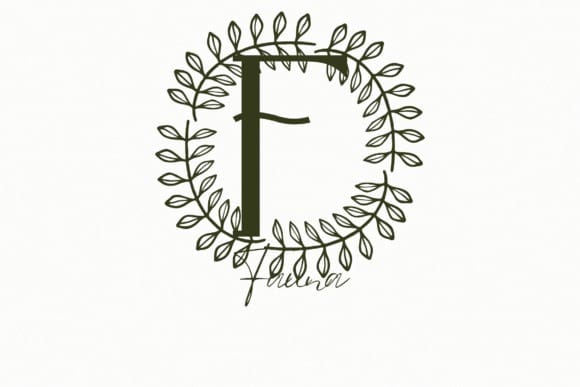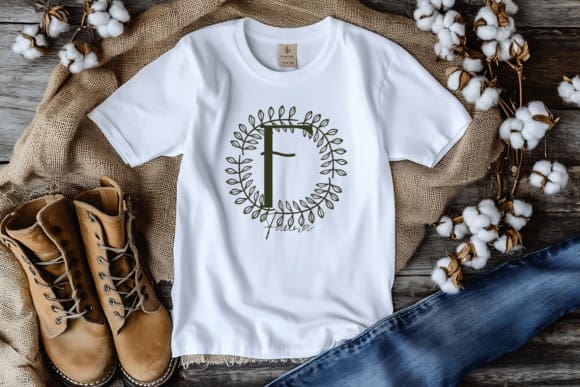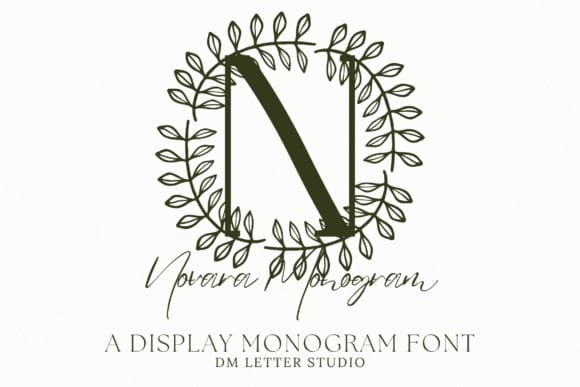
Novara Monogram Font
Novara Monogram Font is a modern serif monogram font shaped for clean elegance and high readability. Each uppercase letter is carefully proportioned with sculpted serifs, open counters, and confident spacing, so initials look crisp in print, on screen, and when cut or engraved. Use Novara for wedding suites, boutique branding, packaging, keepsakes, vinyl decals, embroidery, laser engraving, and Cricut crafts that need a refined, contemporary touch.
The design blends classic serif cues with a fresh, architectural rhythm. Strokes are steady, curves are measured, and terminals feel polished without becoming ornate. The result is a monogram style that holds its form at small sizes and feels sophisticated on signage or product labels. Pair it with a light script for romance or with a neutral sans for a gallery-clean system that lets the monogram lead.
Whether you are building a wedding crest, launching a boutique line, or personalizing gifts, Novara delivers clarity and presence. The letterforms feel calm and intentional, so your monogram looks consistent across print, cut, and engraved applications.